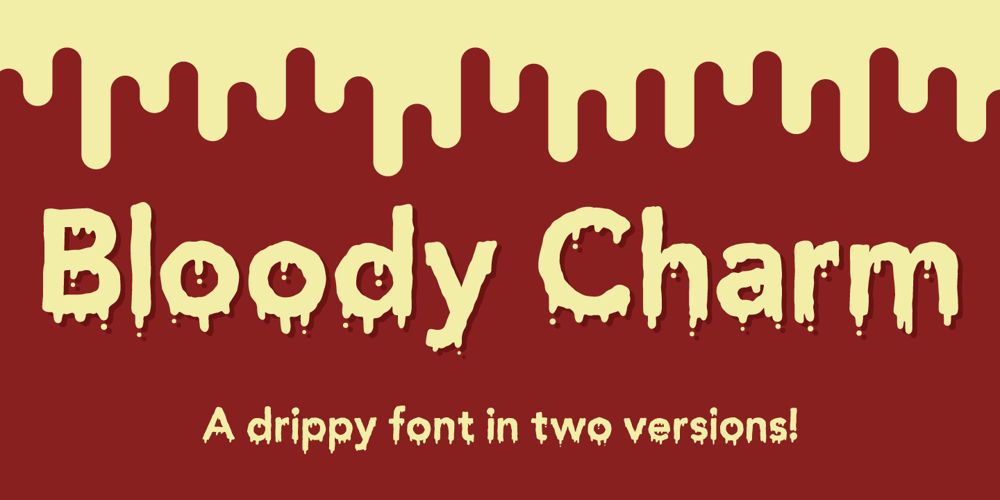
Bloody Charm Font Family was designed by Jakob Fischer and published by PizzaDude.dk. Bloody Charm contains 2 styles and family package options. Is it blood, melted ice, water or something slimy? Choose yourself, because Bloody Charm can be used for all purposed that needs something either scary or melting. I’ve added two versions: Regular and Drips. The Drips versions is (you may have guessed it already!) a bit more drippy than the regular version. Both versions uses contextual alternates, which in this case means that there is 3 different versions of all lowercase letters – and these automatically cycles as you type!